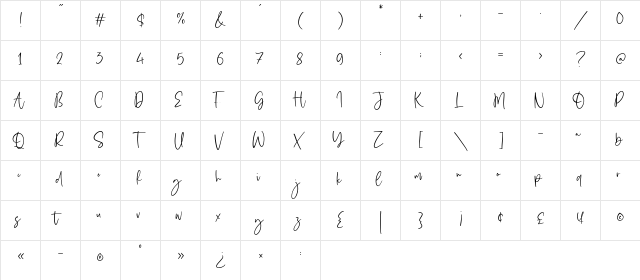
Obladi Script Regular
| Designer | Letterative Studio |
Design Context for Obladi Script Typeface
Obladi Script brings a calligraphic fluidity to the page — its connecting strokes and expressive curves give it an unmistakably human quality.
Font Pairing: Combine Obladi Script with a simple geometric sans for maximum contrast — the tension between flowing curves and clean structure is a classic typographic pairing.
Pro Tip: Use Obladi Script for short runs of text — names, titles, or taglines. Extended body copy in script faces tires the eye quickly.